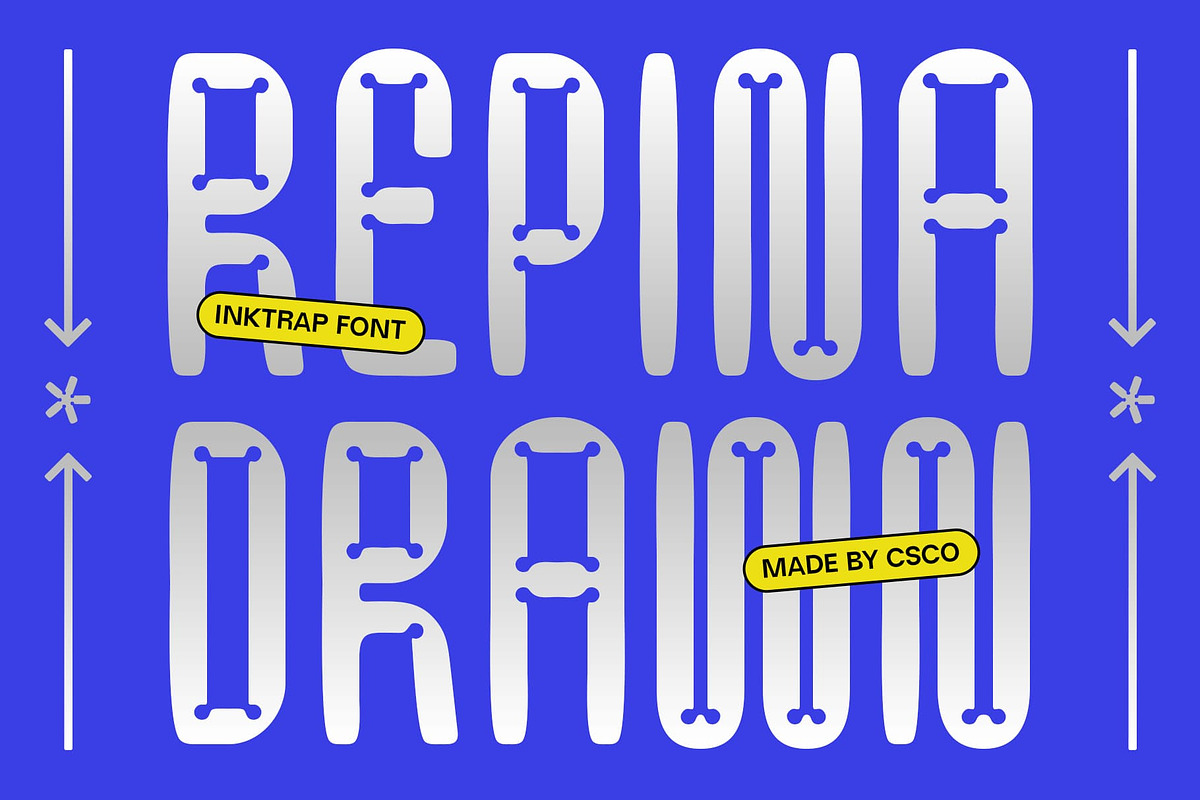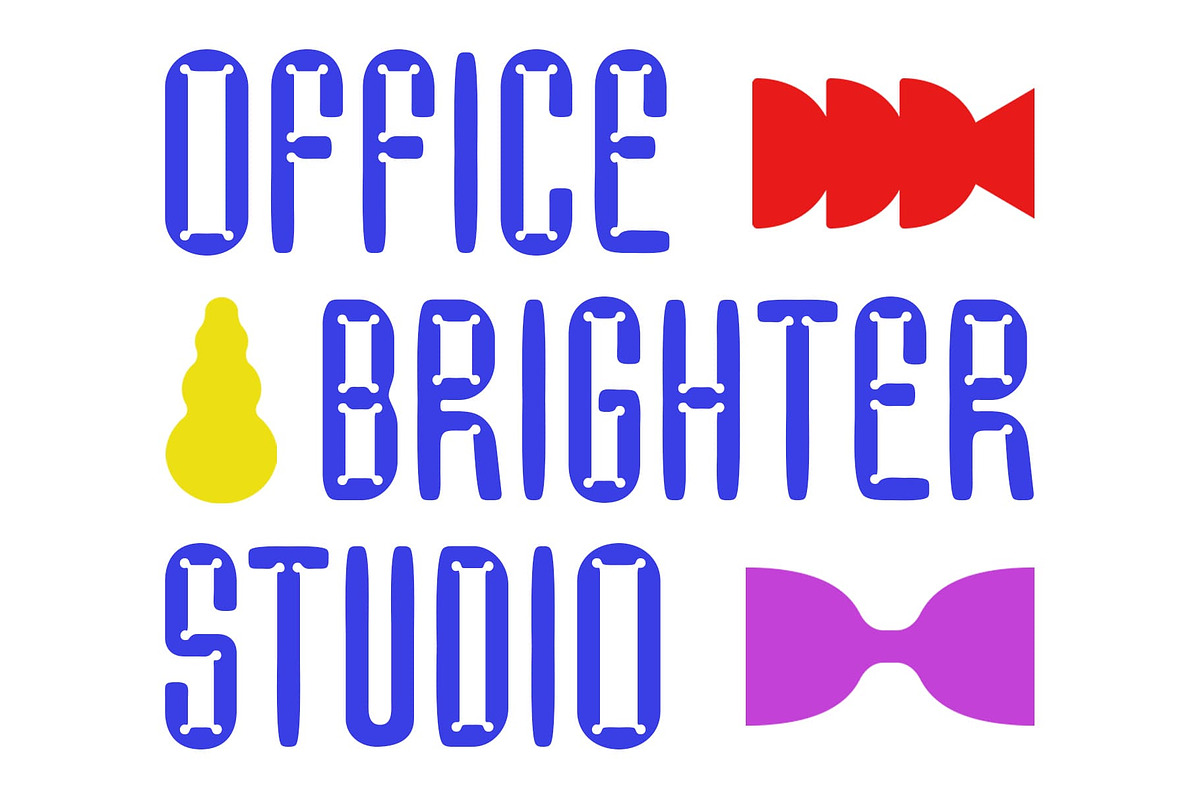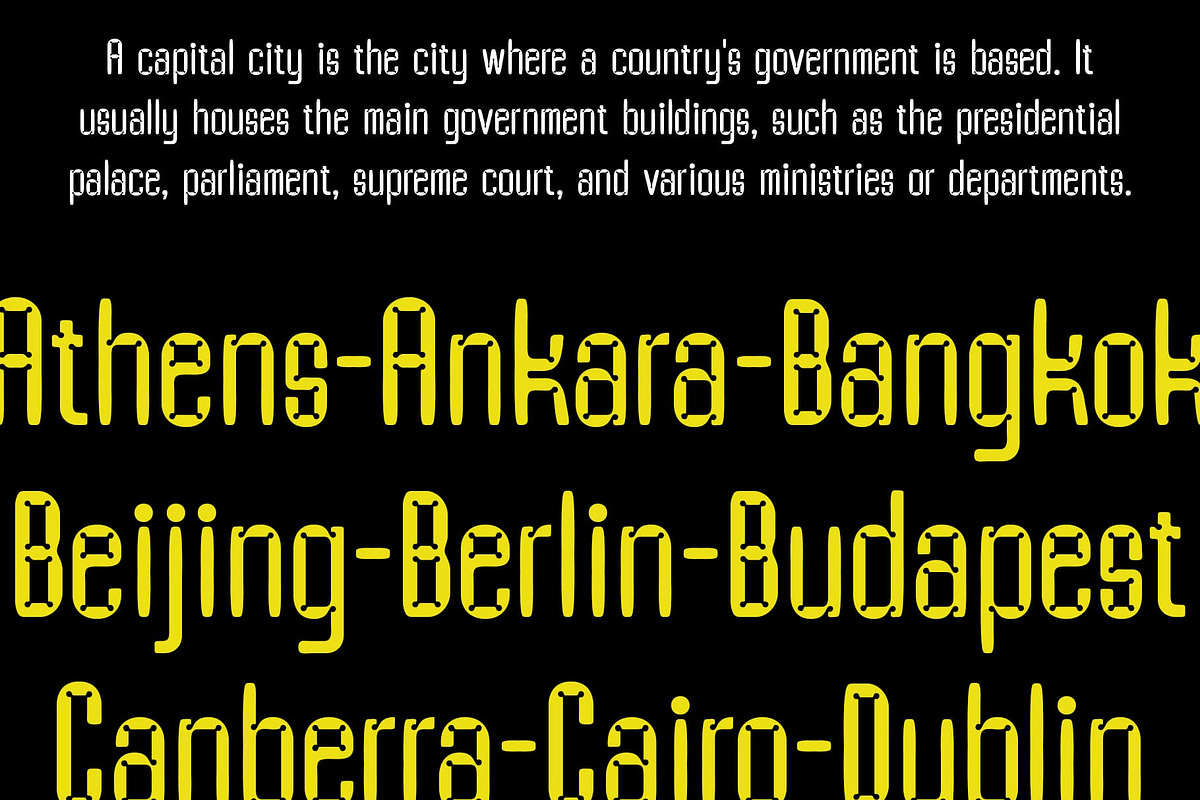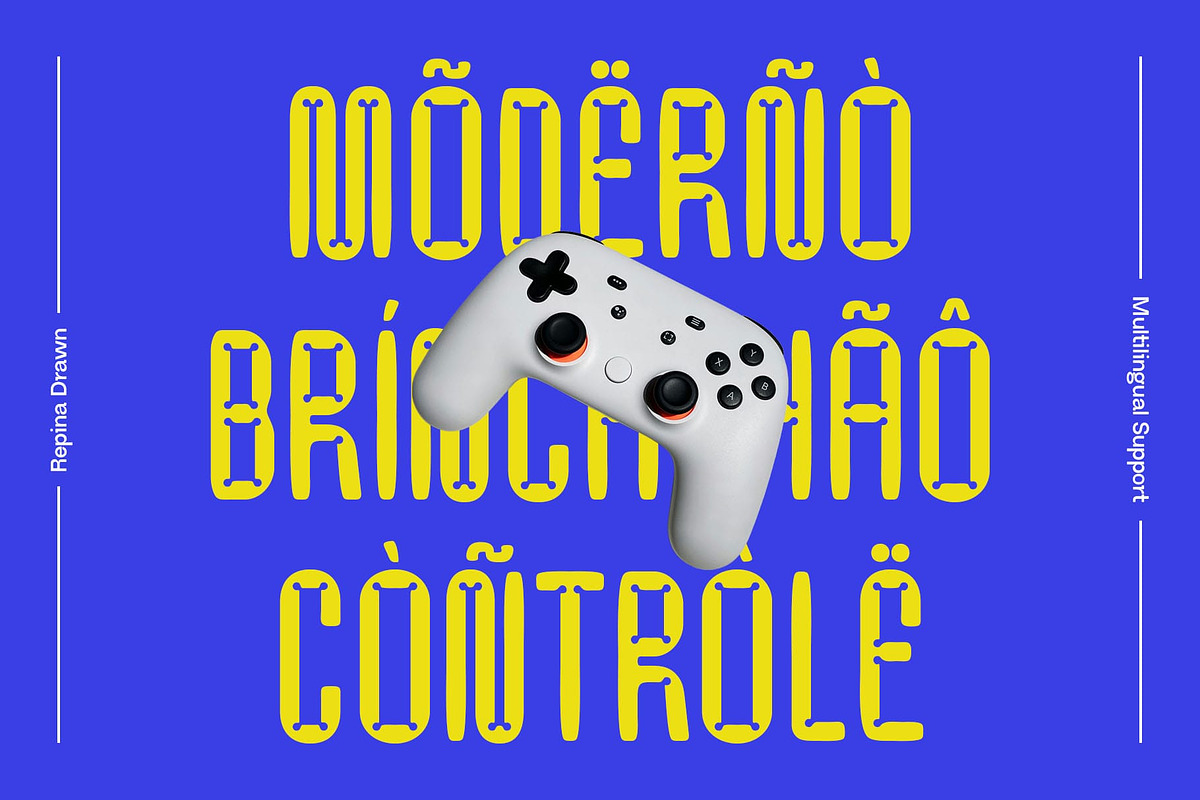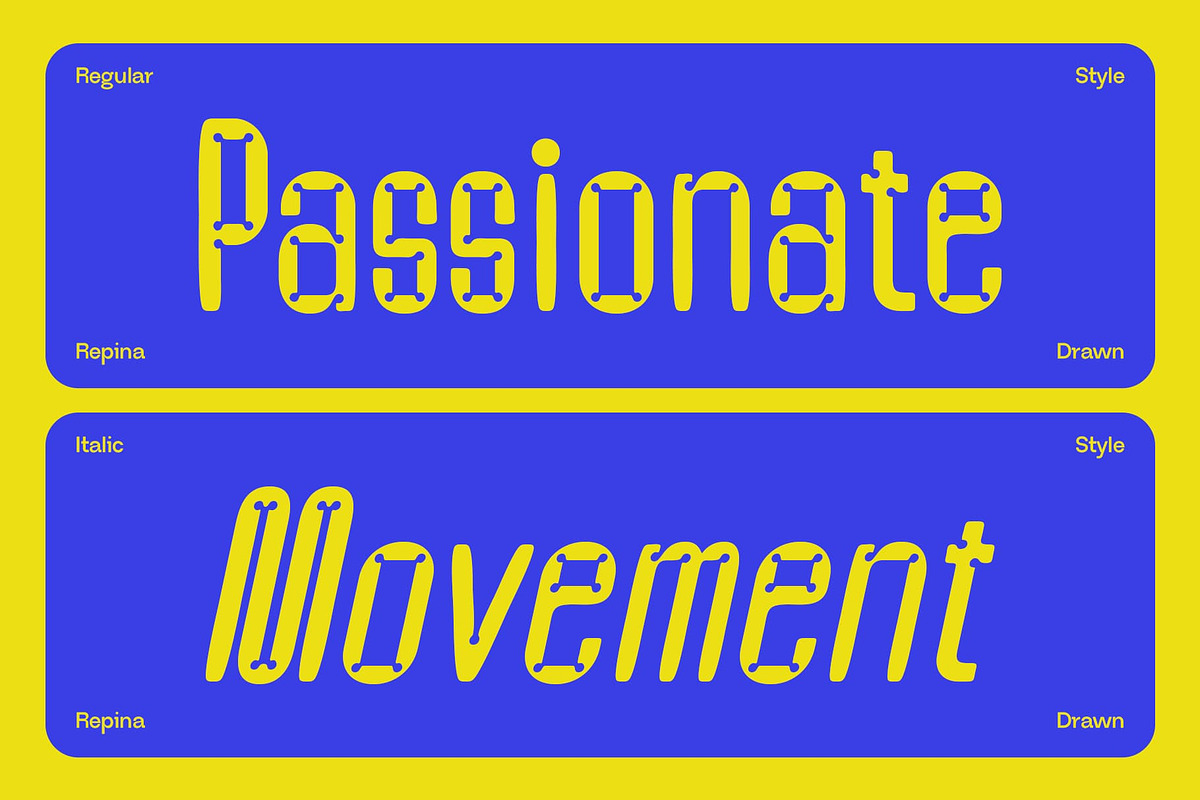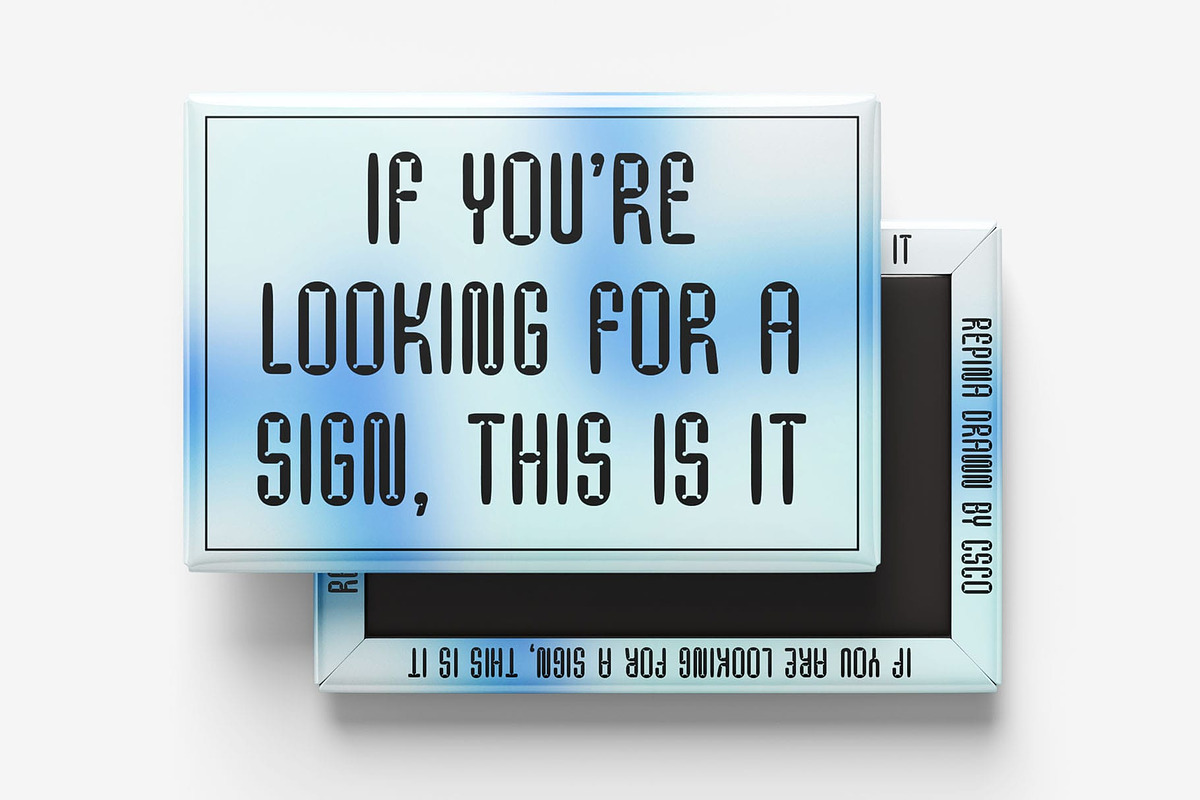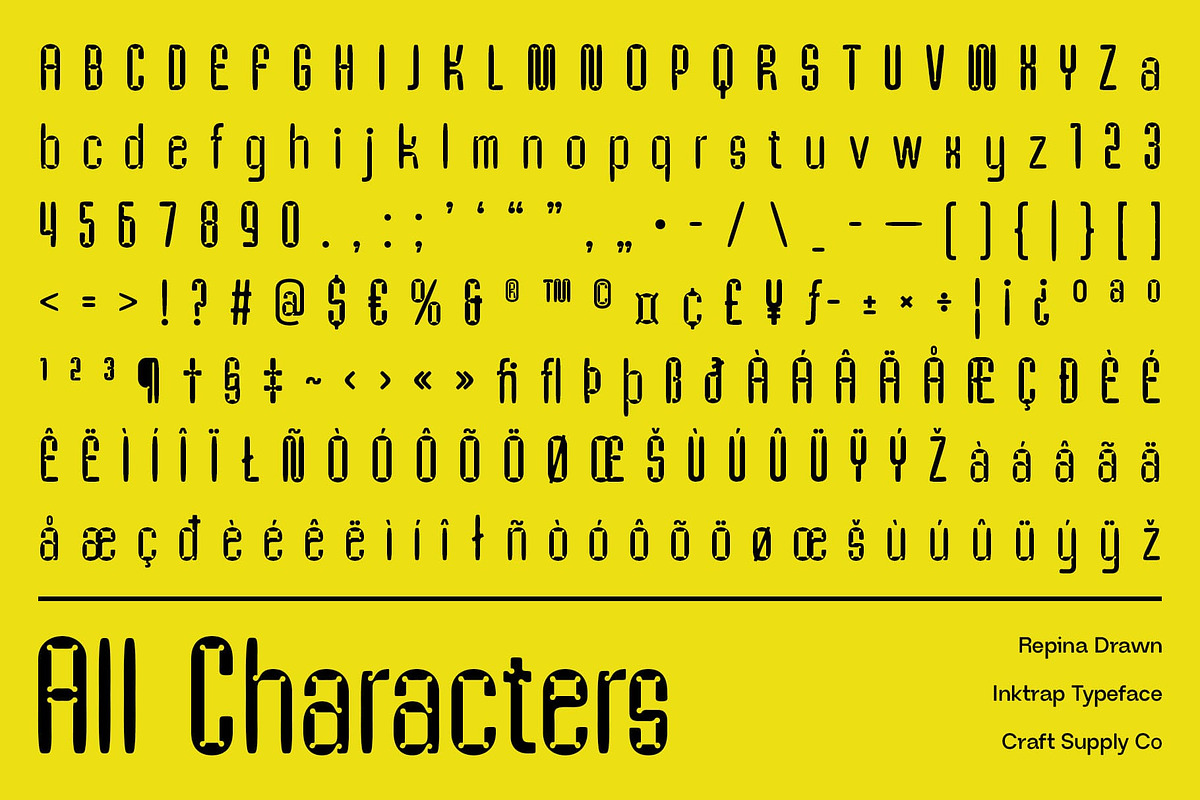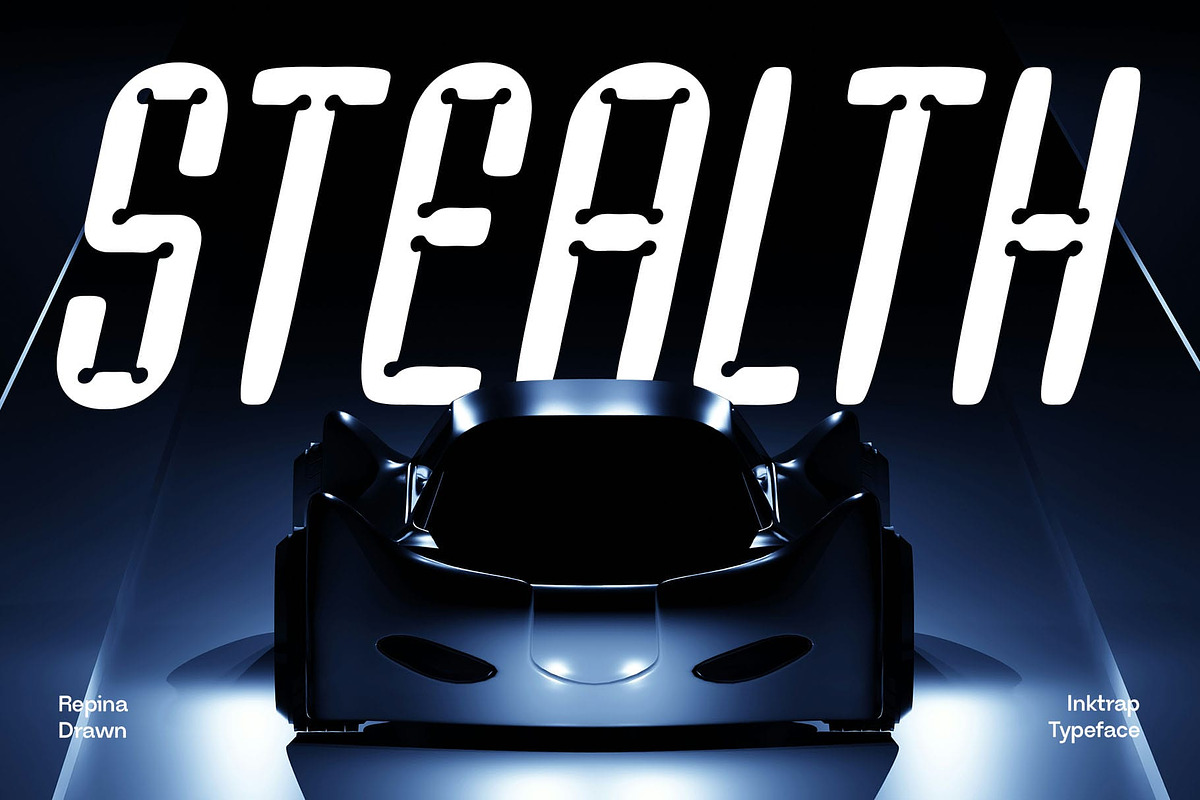
Repina Drawn
Repina Drawn Font – Precision Meets Personality
Condensed Sans Serif with Technical Clarity Repina Drawn is a modern sans serif font with clean, condensed letterforms designed for space efficiency and visual impact. Its bold, narrow proportions deliver a compact and assertive look, perfect for making the most of limited layout space without sacrificing legibility or strength.
Inktrap Details for Sharpness Crafted with subtle inktrap details, Repina enhances readability by reducing visual noise at small sizes or in print. These functional cuts add visual sharpness and modern typographic precision, making the font especially effective in professional or digital contexts where clarity is key.
Drawn Effect for Organic Expression Overlaying the technical structure is a drawn effect that introduces a handmade texture—adding depth, irregularity, and human touch. The resulting visual tone feels organic, slightly raw, and expressive, breaking away from the coldness of purely digital geometry. This fusion of clean sans serif form with imperfect, hand-drawn texture makes Repina Drawn artistic without losing its structure, perfect for adding visual intrigue and personality to minimalist layouts.
Ideal for Bold, Contemporary Design Whether you’re designing experimental posters, bold editorials, or contemporary branding, Repina Drawn offers a versatile and character-rich solution. Its mix of condensed form, inktrap sharpness, and expressive drawn texture makes it perfect for visual projects that aim to be modern, daring, and full of personality.